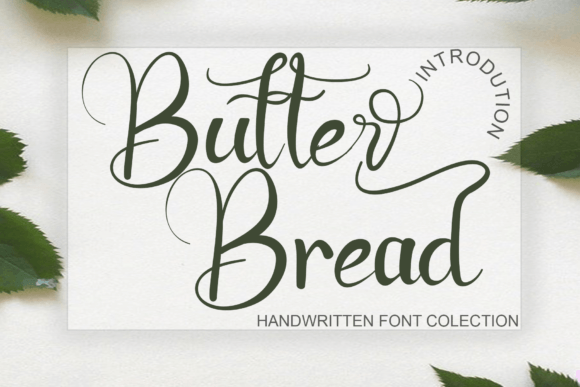
Introduction to Butter Bread Font
Butter Bread is a stylish handwritten font with a contemporary atmosphere and impeccable form, inspired by timeless classic calligraphy.
Balanced and varied, this font was designed to enhance the beauty of your projects .
Key Features of Butter Bread Font